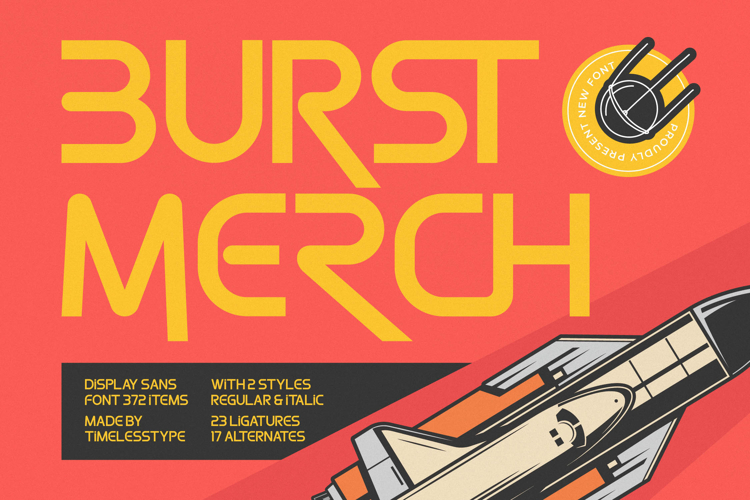
Burst Merch - Display Sans Serif
Unleash bold creativity with Burst Merch - Display Sans Serif, a typeface meticulously crafted to make an unforgettable statement. Its robust, display sans serif form exudes a potent blend of modern dynamism and retro-futuristic charm, perfect for capturing immediate attention. This font embodies a unique visual rhythm, characterized by its confident lines and subtly rounded terminals, ensuring every headline and logotype delivers maximum impact and unrivaled legibility.
Beyond its striking aesthetics, Burst Merch - Display Sans Serif is engineered for comprehensive design flexibility. With its two essential styles, Regular and Italic, alongside an impressive collection of 23 ligatures and 17 alternates, designers gain unparalleled control to craft truly unique typographic compositions. These rich OpenType features empower you to create distinctive branding, impactful editorial designs, and captivating digital experiences that resonate.
Expand your design horizons globally with confidence. With its extensive multilingual support, Burst Merch - Display Sans Serif adapts seamlessly across global markets, making it incredibly versatile for international projects. This robust linguistic capability ensures your message maintains its powerful visual integrity, transcending cultural boundaries and connecting with diverse audiences, establishing your brand as truly global.